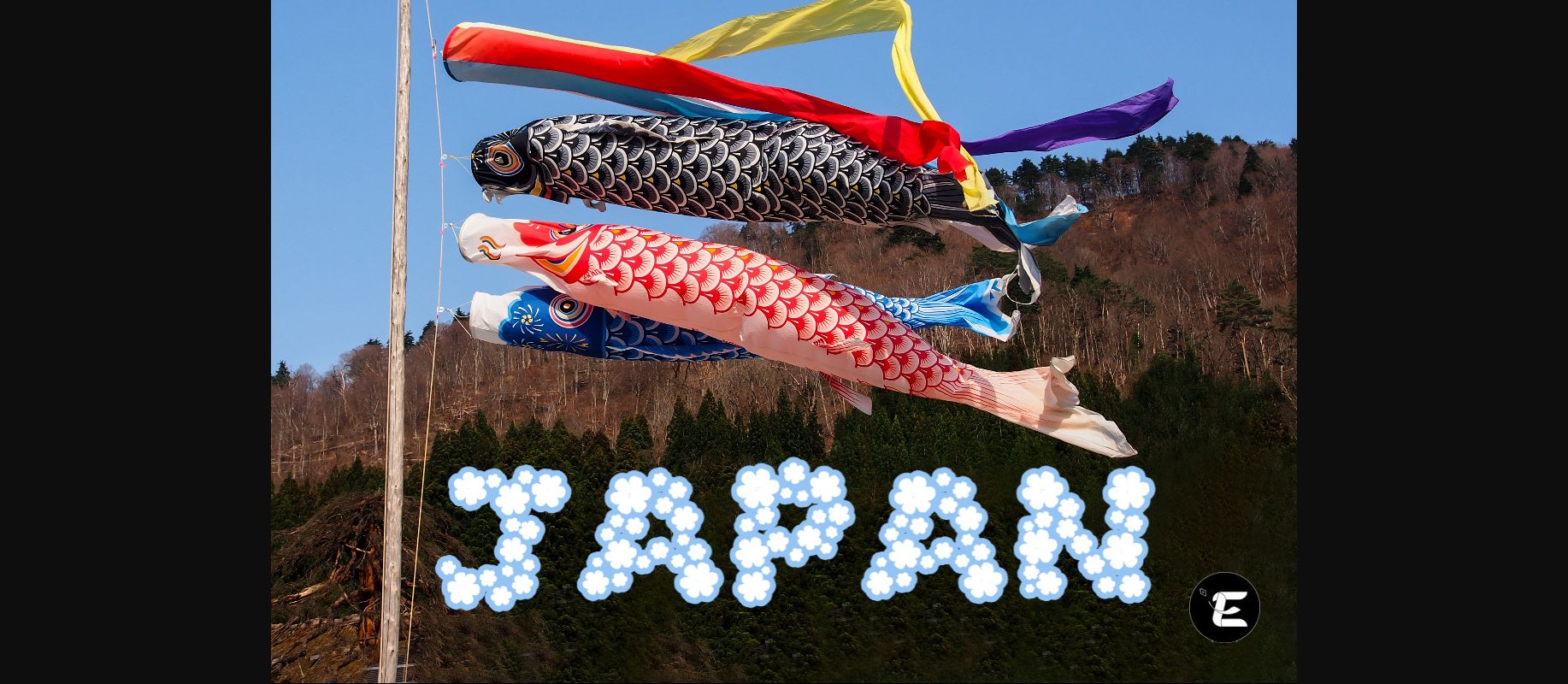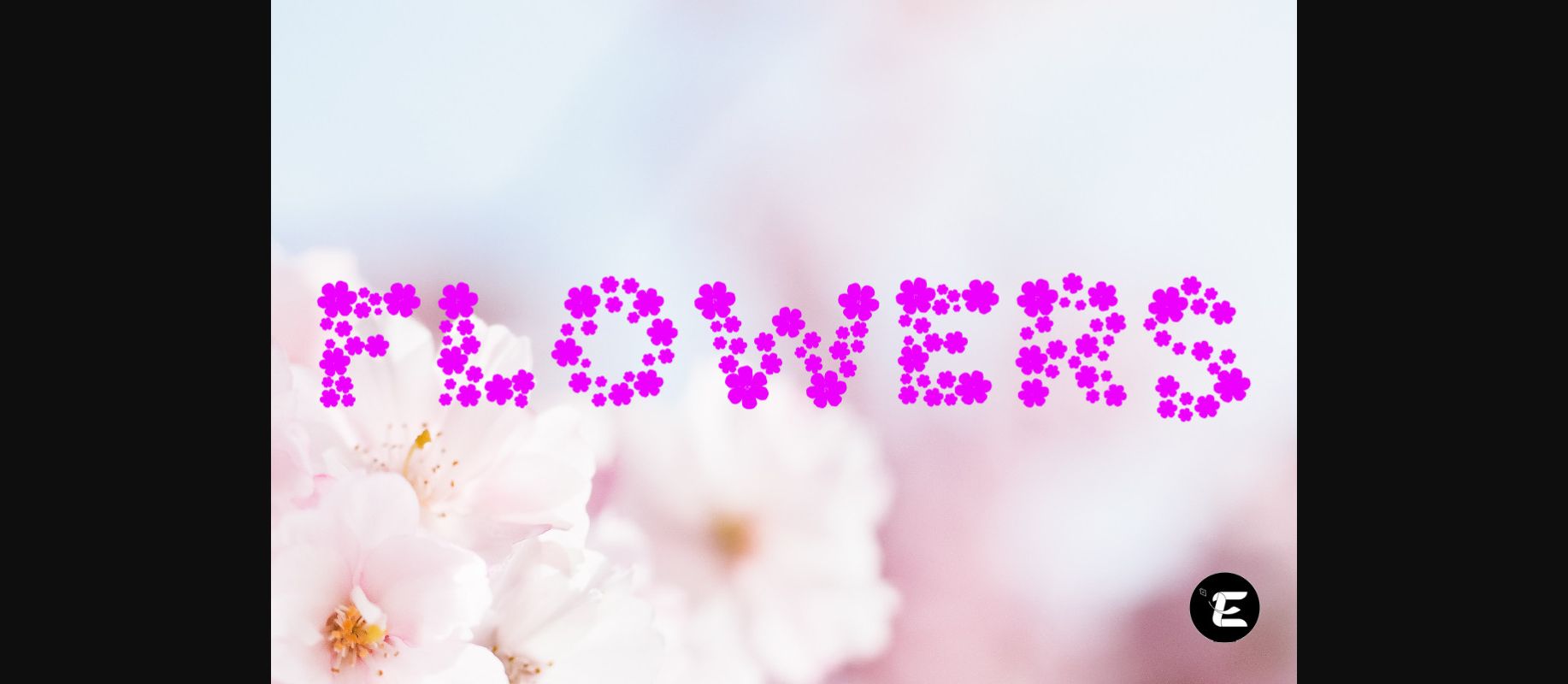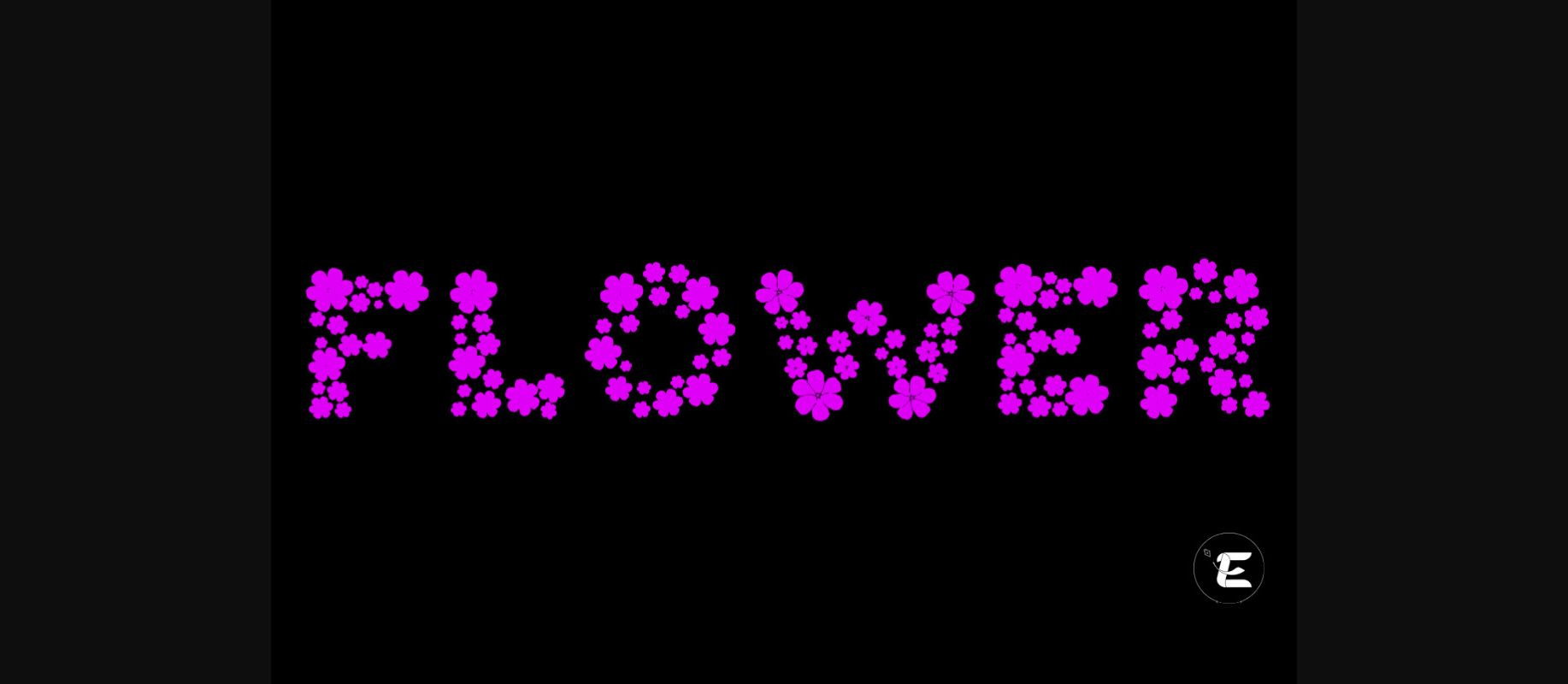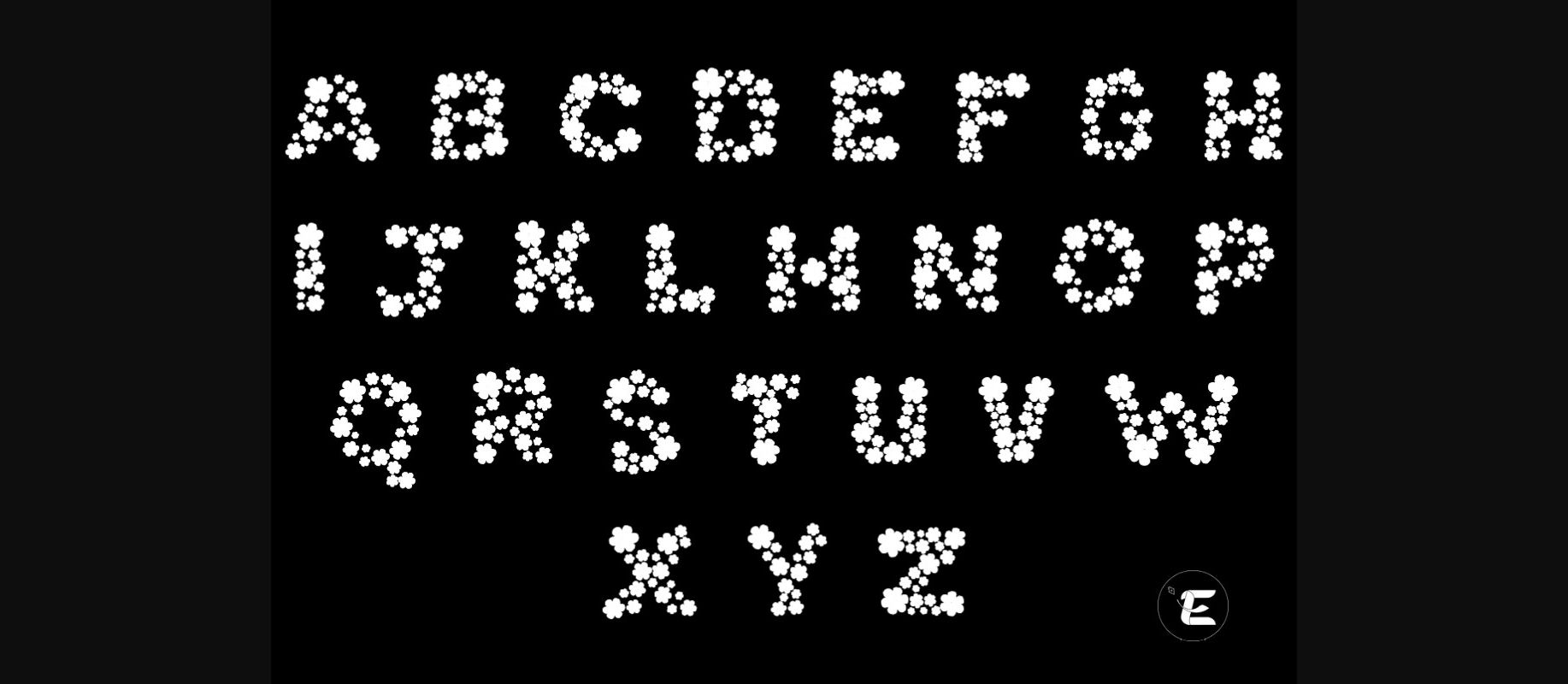
Flowers Font
About Flowers Font
Flowers is a soft and warm decorative font. Whether you use it for crafts, digital design, presentations or greeting cards, this font has the potential to become your favorite font for any occasion!